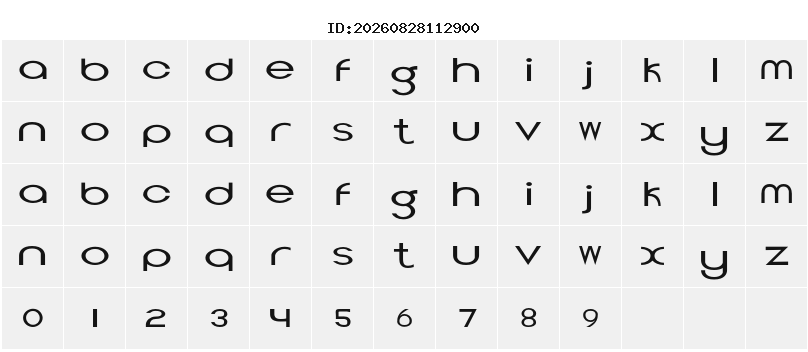
Topeka Preview
• Font Name: Topeka
• Full Font Name: Topeka
• PostScript Name: Topeka
About Topeka.otf
Topeka.otf is a modern, elegant sans-serif font designed for ultimate readability and visual harmony. Perfect for branding, headlines, web design, and print materials.